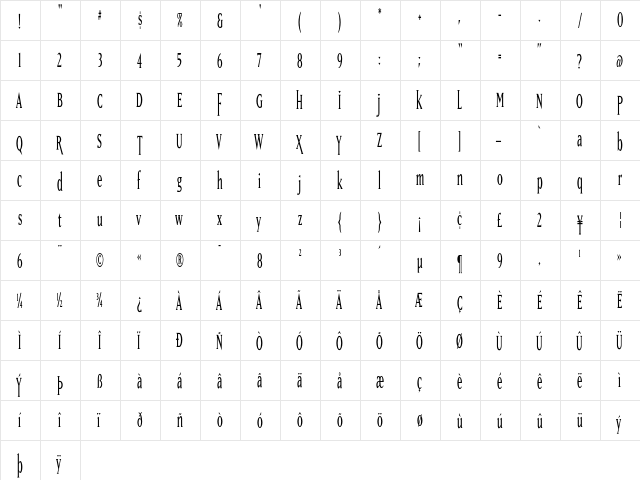
MatrixTall Medium
| Foundry | Copr. Emigre Graphics |
Design Context for MatrixTall Typeface
MatrixTall is a composed and adaptable typeface that performs quietly and consistently across a wide range of design contexts.